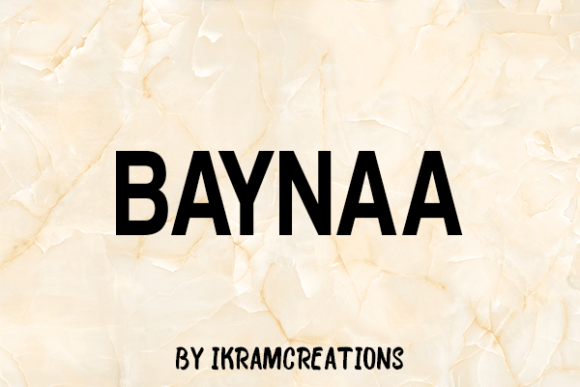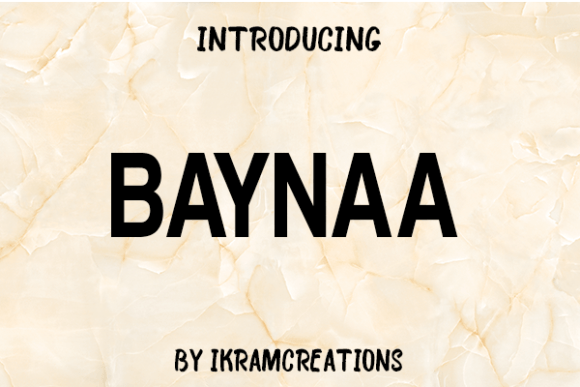
Introducing Baynaa Font: The Ultimate Sans Serif Addition to Your Typography Arsenal
In the world of typography, fonts play a crucial role in conveying messages, expressing emotions, and enhancing the visual appeal of designs. For designers, crafters, and typography enthusiasts, finding the perfect font can be a daunting task. However, if you’re looking for a simple, classic, and neat sans serif font that can elevate your creations, look no further than Baynaa Font.
What is Baynaa Font?
Baynaa Font is a modern sans serif font that boasts a clean and minimalist design. Its simplicity makes it an incredibly versatile font, suitable for a wide range of applications, from digital designs to print materials. Whether you’re working on a logo, brochure, website, or social media graphics, Baynaa Font is an excellent choice.
Key Features of Baynaa Font
- Simple and Classic Design: Baynaa Font features a straightforward and uncomplicated design, making it easy to read and understand.
- Neat and Clean Lines: The font’s lines are smooth and uncluttered, giving it a professional and sophisticated look.
- Sans Serif: Baynaa Font is a sans serif font, which means it doesn’t have serifs or small lines at the ends of the letters.
- Highly Versatile: Baynaa Font can be used for various design projects, including logos, headings, body text, and more.
Why Choose Baynaa Font?
Baynaa Font is an excellent addition to any designer’s or crafter’s font library. Here are some compelling reasons to choose Baynaa Font:
- Elegance and Sophistication: Baynaa Font exudes elegance and sophistication, making it perfect for designs that require a professional look.
- Readability: The font’s clean design and clear lines ensure excellent readability, even at small font sizes.
- Flexibility: Baynaa Font can be used for both digital and print materials, making it a versatile font for various design projects.
- Easy to Pair: Baynaa Font pairs well with other fonts, allowing you to create stunning font combinations.
Use Cases for Baynaa Font
Baynaa Font is suitable for a wide range of design projects, including:
- Logos and Branding: Baynaa Font is an excellent choice for logos, as its simplicity and elegance make it easy to recognize and remember.
- Web Design: The font’s clean design and readability make it perfect for website headers, body text, and other digital elements.
- Print Materials: Baynaa Font is suitable for print materials, such as brochures, flyers, and business cards.
- Social Media Graphics: The font’s simplicity and elegance make it an excellent choice for social media graphics, such as Facebook posts, Instagram stories, and Twitter headers.
| Font Name | Baynaa Font |
| Author | IkramCreations |
In conclusion, Baynaa Font is an exceptional sans serif font that can elevate your designs and take your typography to the next level. Its simplicity, elegance, and versatility make it an excellent addition to any designer’s or crafter’s font library. Whether you’re working on a logo, website, or print materials, Baynaa Font is a reliable and stylish choice.